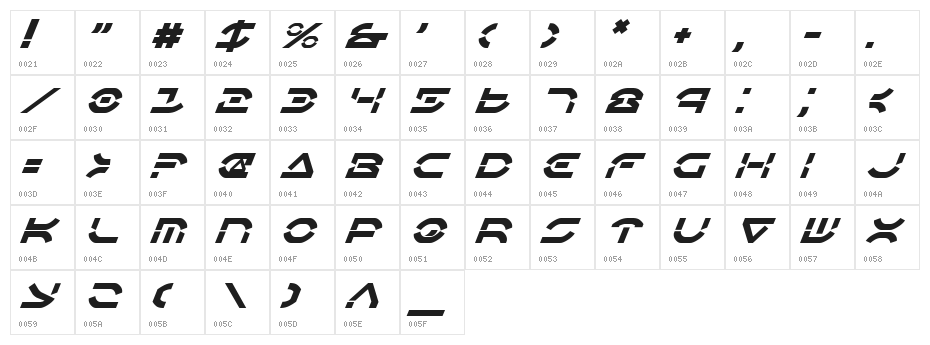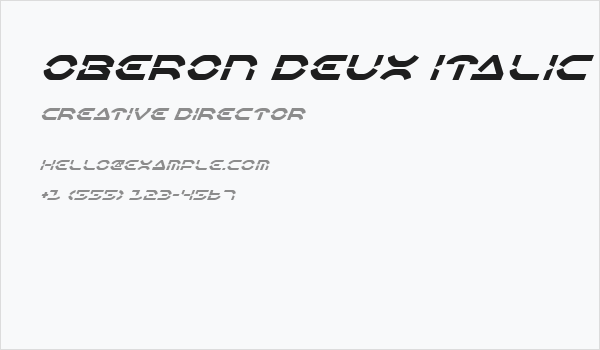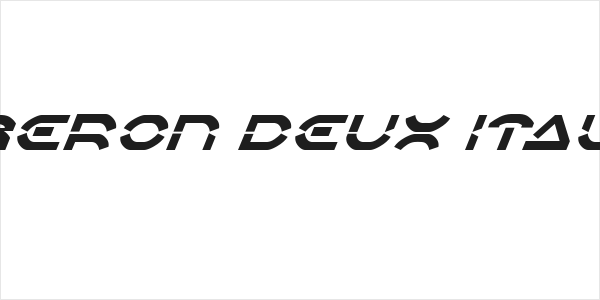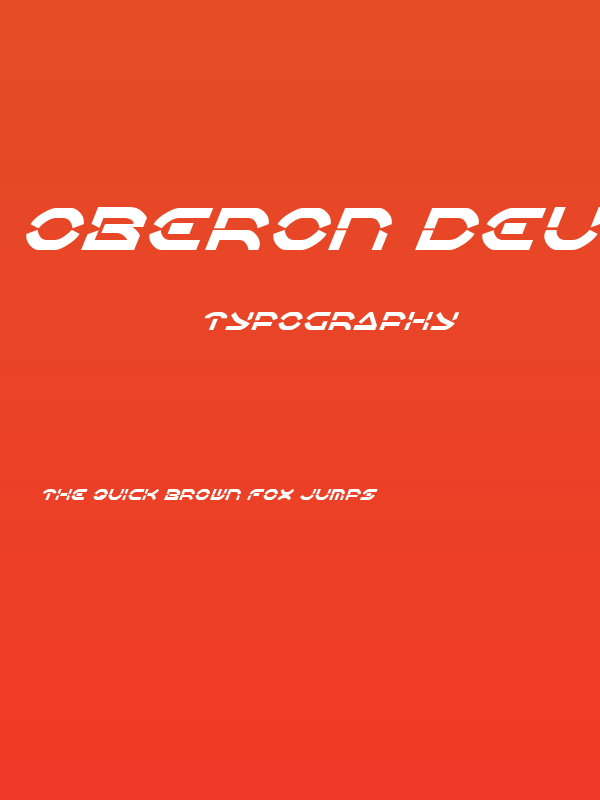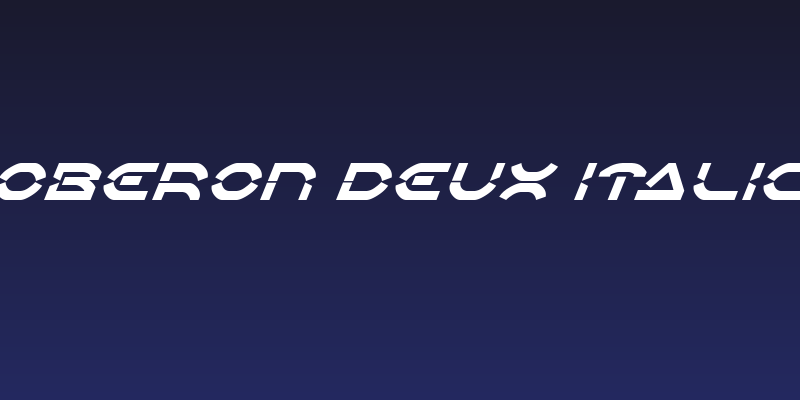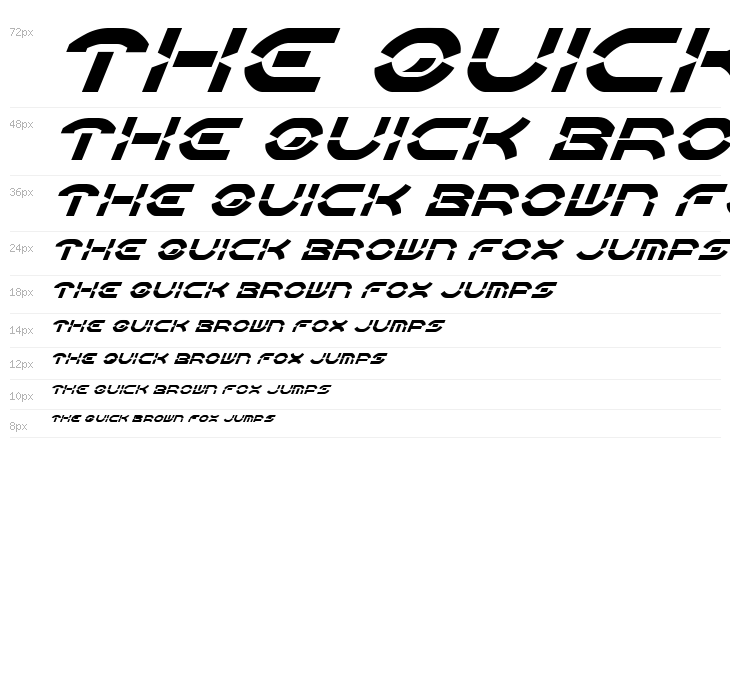
Oberon Deux Italic Font
Oberon Deux Italic Description
This font features a futuristic and angular design with a distinct italic slant, giving it a dynamic and forward-moving appearance. The characters are composed of bold, geometric shapes with sharp edges and diagonal cuts, creating a sense of speed and modernity. The uppercase and lowercase letters maintain a consistent style, with the lowercase mirroring the uppercase in form but reduced in size. Numerals and special characters follow the same angular and bold aesthetic, ensuring uniformity across the typeface. The font's unique style makes it stand out, ideal for projects that require a modern and edgy look.
| Proposed Projects | Ideal for sci-fi themed designs, technology branding, video game titles, and modern advertising. |